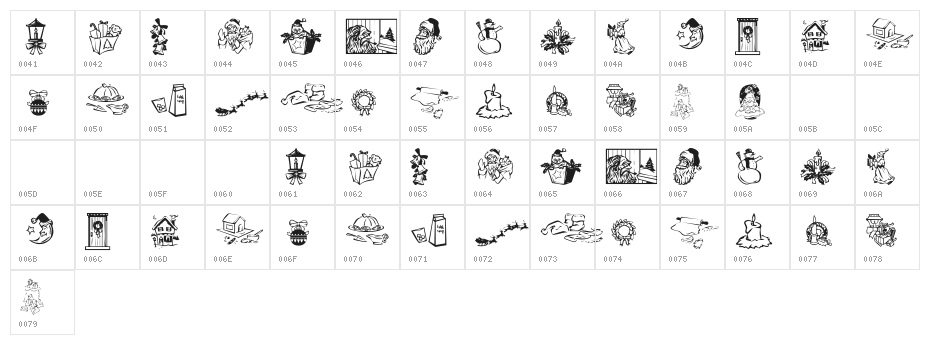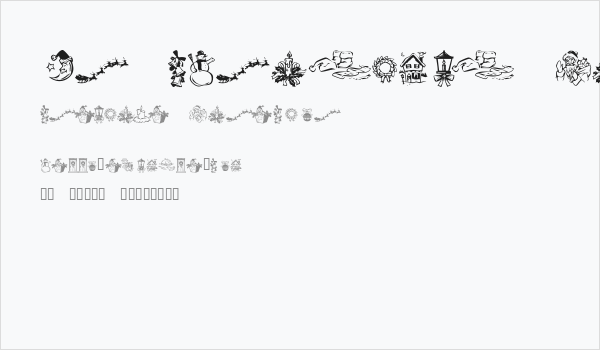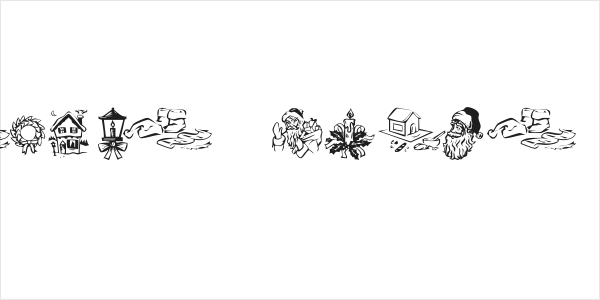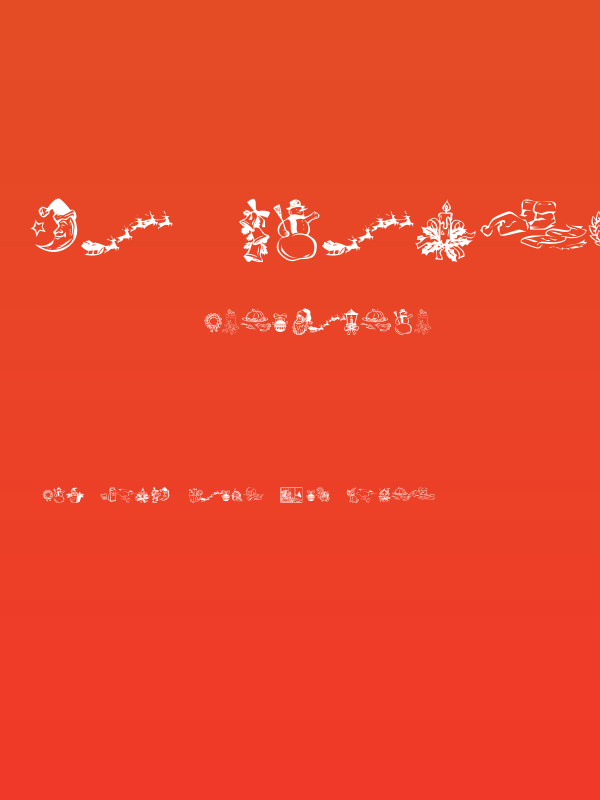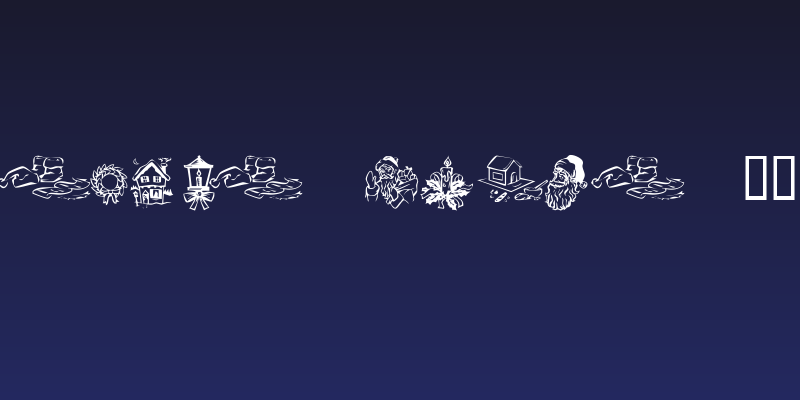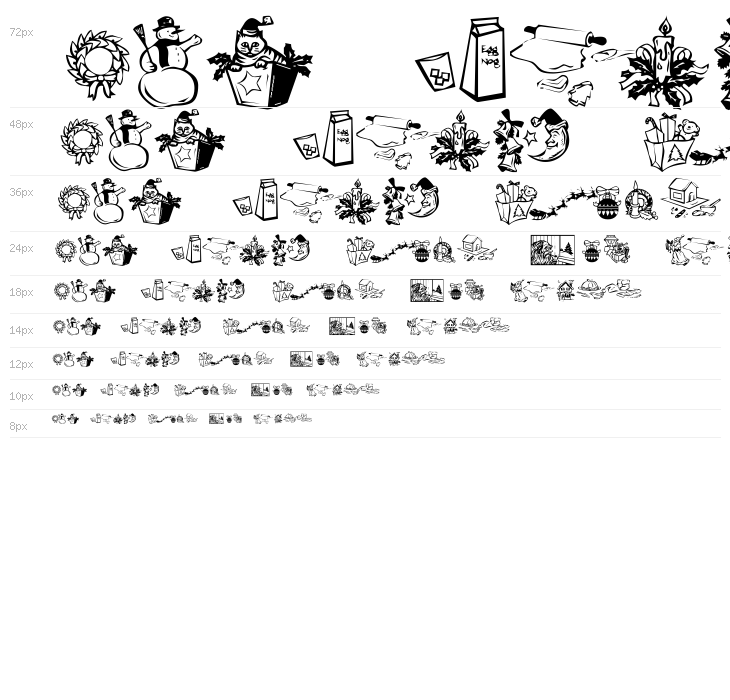
KR Christmas Dings 2004 Three Font
KR Christmas Dings 2004 Three Description
This is a decorative dingbat font featuring a variety of Christmas-themed illustrations. Each character is represented by a unique festive icon, such as Santa Claus, snowmen, Christmas trees, and gifts. The designs are intricate and detailed, capturing the essence of holiday cheer. The icons are black and white, allowing for versatile use in different design contexts. This font is perfect for adding a whimsical and festive touch to holiday cards, invitations, and decorations. The playful and joyful nature of the icons makes them suitable for both personal and commercial holiday projects.